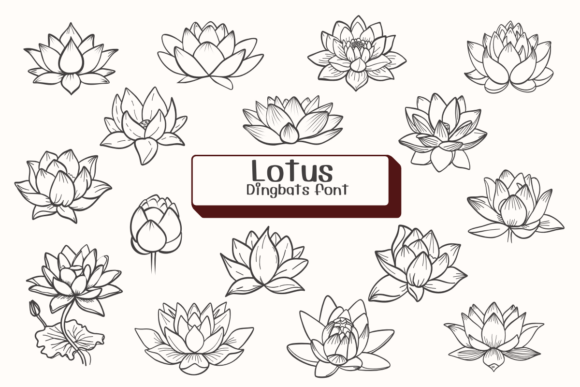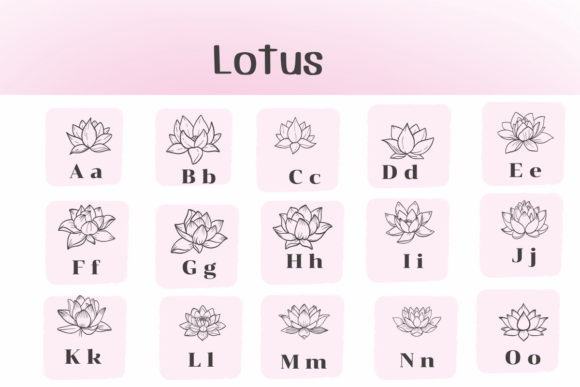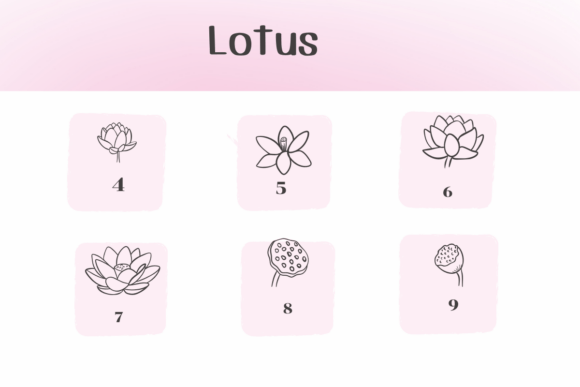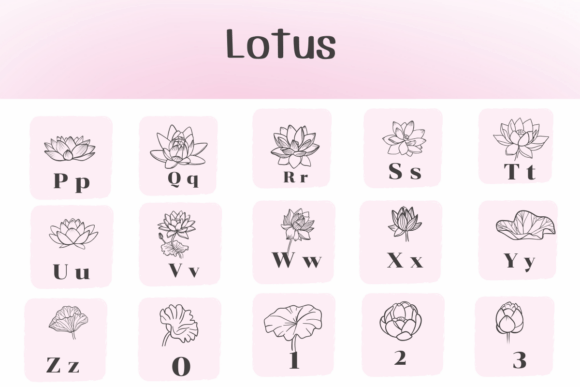
Lotus Font: Floral Dingbats for Wedding & DIY Crafts!
About the Lotus Font
Discover the charm of Lotus Font. This font is a perfect blend of modern aesthetics and classic appeal. Lotus is a dingbats font with a floral theme. This font can enhance your creative projects such as wedding invitations, DIY, crafts, decorations, logos, and many other creative ideas
Lotus’s delicate floral motifs are ideal for projects requiring a touch of elegance and femininity. It excels in applications like wedding stationery, logos for boutiques or spas, and packaging for beauty products or floral-themed goods. However, its intricacy makes it unsuitable for body text or UI elements where readability is paramount. Avoid using it in long paragraphs or small sizes.
Pairing Lotus with a clean sans-serif font like Helvetica Neue for body copy creates a strong contrast and balanced aesthetic. For a more playful feel, consider pairing it with a rounded sans-serif such as Bebas Neue. A classic serif like Garamond could also work well, offering a sophisticated counterpoint to Lotus’s ornate style.
Lotus projects a refined, romantic personality, best suited for brands aiming for a delicate and feminine image. Its intricate details convey sophistication without being overwhelming, making it a versatile asset for projects requiring visual appeal and attention to detail.
Lotus Font Usage Examples
Lotus Font Example